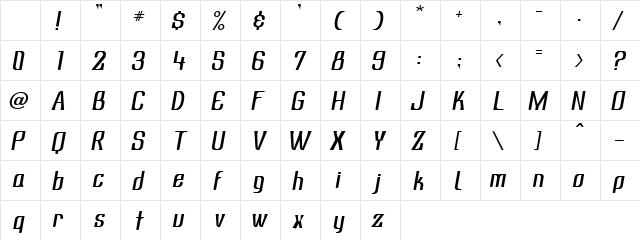
Complete Subatonik Italic glyph index. Displaying only characters natively supported by Subatonik Italic font.
Subatonik is a composed and adaptable typeface that performs quietly and consistently across a wide range of design contexts. The slanted form adds forward momentum and visual energy.
Pro Tip: Use Subatonik for emphasis, pull quotes, and subheadings where its slanted energy can add rhythm to the layout.